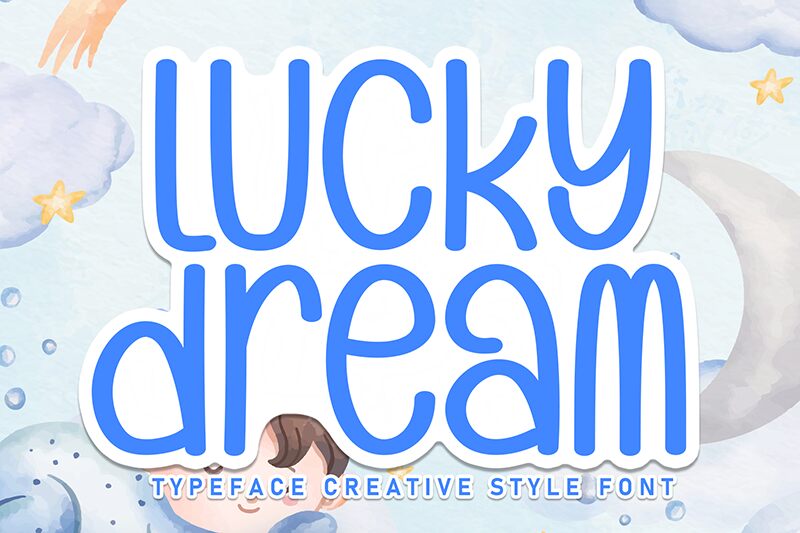
Lucky Dream
Lucky Dream font designed by Andi Moz is a unique handmade typeface forming a rare breakthrough to the conventional typography rules. This free handwritten font expresses a strong desire for distinctive self-expression and freedom. Its absence of strict size or width rules makes it exceptionally special, as it can always typographically empower its users’ messages beyond mere words.
Use Lucky Dream for web design projects such as written fonts or titles. With its cool style, let your presentation designs, illustrated magazine articles, PR campaign elements and digital ads breathe new life when using this masterpiece. Make special occasions more memorable with unique greeting cards, invitation cards, and souvenir designs.